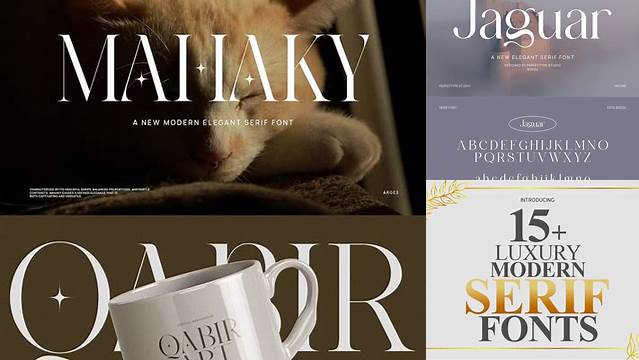
Clean & Modern Serif Fonts: Your Guide To Timeless Typography
Hey guys! Let's dive into the awesome world of typography, specifically focusing on clean and modern serif fonts. These fonts are like the elegant backbone of the design world, bringing a touch of sophistication and readability to any project. We'll explore what makes these fonts so special, where to find them, and how to use them effectively to create stunning visuals. Get ready to enhance your design game!
What Makes a Serif Font "Clean & Modern"?
Okay, so what exactly makes a serif font "clean and modern"? Well, it's a blend of classic design principles with a contemporary twist. Think of it like a classic car getting a modern upgrade – it retains its charm but gets a fresh look. Clean and modern serif fonts typically have these characteristics:
Minimalist Serifs: Unlike traditional serif fonts that have elaborate and sometimes chunky serifs (the little strokes at the ends of the letters), modern serifs tend to have more subtle, refined serifs. These serifs are often thin, delicate, and geometric, giving the font a crisp and uncluttered appearance. The goal is to avoid any unnecessary ornamentation, making the font feel streamlined and contemporary. This focus on minimalism helps the font feel less dated and more versatile for modern design applications.
High Contrast: Many clean and modern serif fonts feature a high contrast between the thick and thin strokes of the letters. This contrast adds visual interest and elegance, making the font visually striking and easy to read, especially at larger sizes. However, the high contrast must be carefully balanced. If it's too extreme, it can make the font appear fragile or less readable in small sizes. This is especially important for body text, where readability is paramount.
Geometric Shapes: A key element of the modern aesthetic is the use of geometric shapes. Clean and modern serif fonts often incorporate geometric principles in their letterforms. You might see circular 'o's, perfectly straight lines, and sharp angles, reflecting the precision and order that are hallmarks of modern design. This geometric approach creates a sense of balance and harmony within the font, contributing to its overall aesthetic appeal. It’s a subtle way of injecting a contemporary feel into a classic design.
Open Counters: Counters refer to the enclosed spaces within the letters, like the inside of a 'd' or 'o'. Clean and modern serif fonts often have open counters, meaning these spaces are wider and more generous. This design choice improves readability, especially on screens, as it allows the letters to breathe and prevents them from appearing cramped or crowded. It contributes to the font's overall clarity and contemporary feel, making it perfect for digital use.
Versatility: The best clean and modern serif fonts are incredibly versatile. They can work well in a variety of applications, from headlines and logos to body text. Their clean lines and contemporary feel make them suitable for both digital and print media, helping to create a unified brand identity across different platforms. The versatility makes it a great option for designers looking for a font that does it all.
Where to Find Awesome Clean & Modern Serif Fonts
Alright, now that we know what to look for, let's find some of these gems! There are tons of places to find clean and modern serif fonts, from free resources to premium font foundries. Here are some of my favorites:
Google Fonts: Google Fonts is a fantastic resource for free, open-source fonts. You'll find a great selection of clean and modern serif fonts that are easy to download and use. Many of these fonts are optimized for web use, ensuring great readability on different devices. Plus, you can easily preview the fonts and see how they look in different sizes and styles. The site offers tons of variety and is updated frequently.
Adobe Fonts (Typekit): If you have an Adobe Creative Cloud subscription, you get access to Adobe Fonts (formerly Typekit). This is a huge library of high-quality fonts, including many beautiful clean and modern serif fonts. The fonts are professionally designed and carefully curated, giving you access to a wide range of styles. This is a great option for designers who need a consistent font library across their projects. Easy to activate, use and manage within Adobe apps.
Font Foundries: Independent font foundries are where you'll discover some of the most unique and well-designed clean and modern serif fonts. These foundries are often run by talented font designers who pour their hearts into creating beautiful typefaces. While the fonts might cost money, you're getting high-quality designs with a focus on details and features. Some notable foundries include: Hoefler & Co., Commercial Type, and Klim Type Foundry.
Creative Market/Envato Elements: These marketplaces are goldmines for design resources, including fonts. You can find a diverse range of clean and modern serif fonts here, often at affordable prices. Be sure to check the licensing terms before purchasing to ensure you can use the fonts in your projects. These marketplaces are great for finding fonts that fit a specific aesthetic or project budget. It is often possible to find font bundles, making them even more cost effective.
Conclusion: Embrace the Elegance!
So, guys, there you have it! Clean and modern serif fonts are a powerful tool for designers. Their elegance, versatility, and readability make them a great choice for a wide range of projects. By understanding what makes these fonts special, where to find them, and how to use them effectively, you can elevate your designs and create stunning visuals. Go forth and experiment! Happy designing!